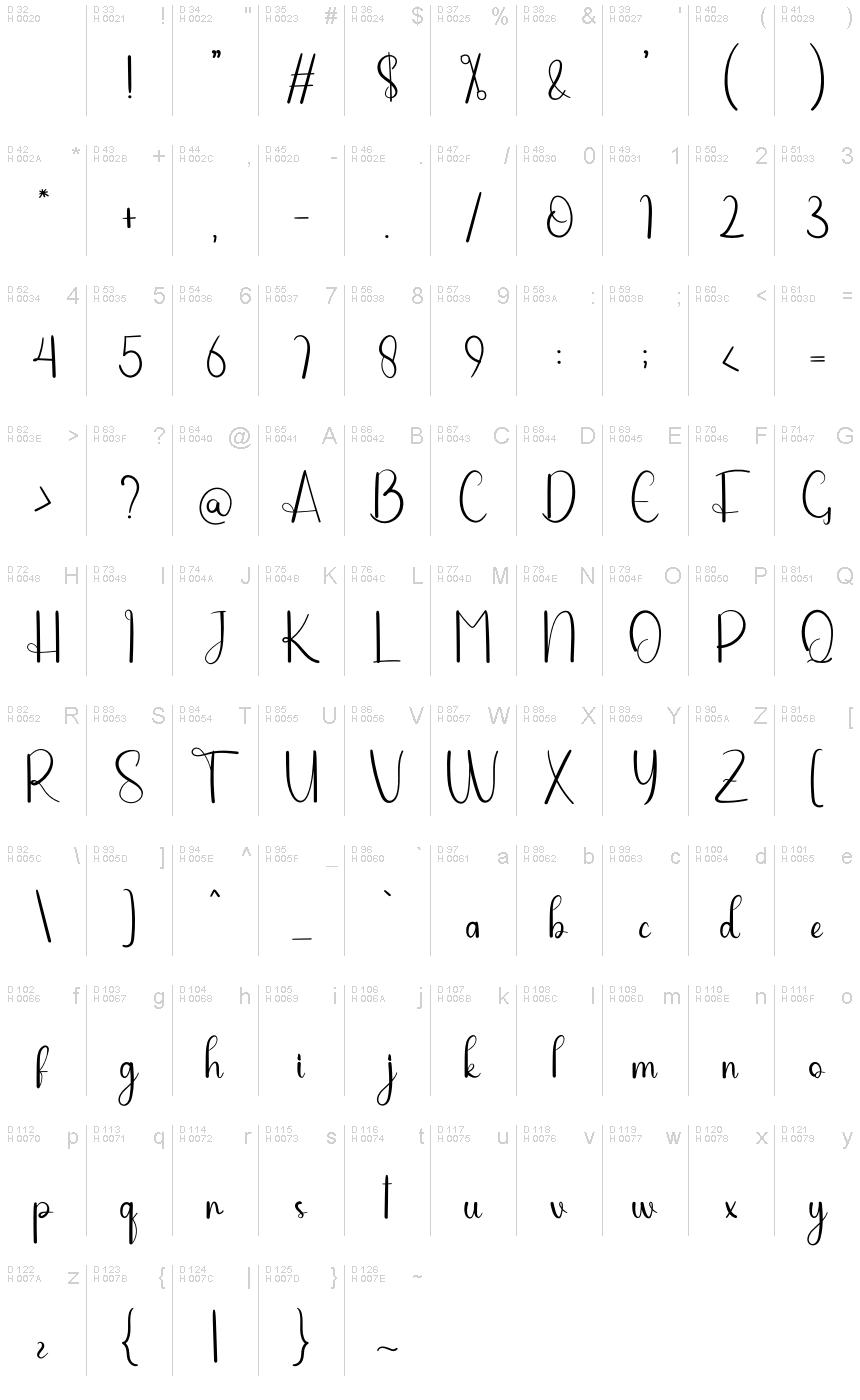
William Smitson
William Smitson is a captivating handwritten font crafted by designer Andi Moz. Its fluid, organic lines and expressive brushstrokes imbue a sense of warmth and personality, making it a versatile choice for a wide range of design applications. The font's distinctive character and playful flourishes lend an artisanal charm, lending themselves beautifully to everything from editorial layouts and branding collateral to wedding invitations and personalized stationery.
William Smitson's inherent versatility and visual appeal make it a compelling option for designers seeking to infuse their projects with a touch of timeless elegance and authentic, handcrafted flair.